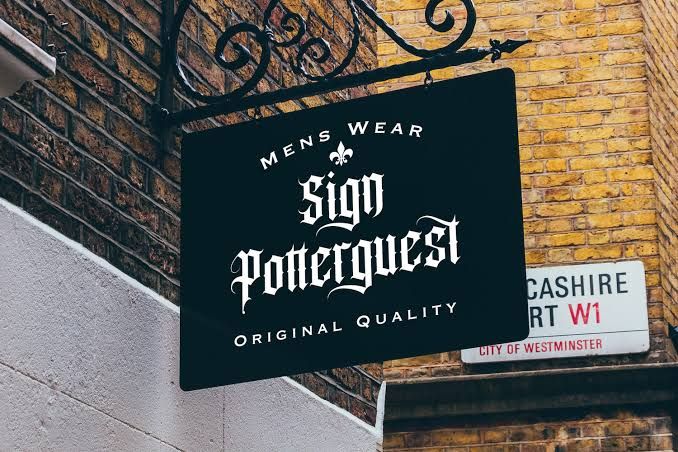
Understanding How To Implement Angel Wish Font in Design
Are you on the lookout for a vintage touch to your designs? Look no further than the Angel Wish font, because this font brings an enchanting blend of elegance to every design project that you create.
Whether you’re creating t-shirts, designing logos, or simply making posters, this kind of font type is the ethereal touch you’ve been searching for. So, let’s learn how to implement this font for a stunning result in your design!
What Is an Angel Wish Font and How Does It Look Like?
Angel Wish Font
The Angel Wish font has an alluring style that resembles old-fashioned writing from medieval times. It has distinct characteristics like sharp, pointy shapes and fancy swirls that give it a special and mysterious vibe.
One of its good points is that it brings an elegant touch and a retro nuance to designs which make them really stand out. The lower cases are thin and sharp, with lines that go from thick to thin and little decorative edges. However, the font really looks stylish and easy to read.
Angel Wish Font Ligature and Alternates
How To Implement Angel Wish Font? Here Are the Ideas!
You can create an astonishing visual by utilizing this blackletter font style as your design element. Take a look at the five inspirations mentioned below!
1. Posters
Angel Wish on Poster Design
The Angel Wish font is a typeface that embodies intricate and decorative features that are inspired by historical calligraphy. It has dramatic strokes that reflect a traditional Gothic style. Additionally, the font’s bold appearance lends a sense of elegance, sophistication, and uniqueness to any design it’s applied to.
With its bold and ornamental style, this font is good for posters because it grabs attention and makes the text more captivating. Whether for headings, titles, or prominent text elements, this font brings a vintage touch that amplifies the poster’s visual impact and enhances the overall design’s appeal.
2. Logo or Signage
Signage Design Using Angel Wish Font
This type of font is like something out of an old and fancy storybook. It has cool and swirly letters that look like fancy handwriting from way back. Plus, it’s bold and makes a statement that will give off a classy and timeless vibe.
If you use the Angel Wish font for your logo or signage, it gives your brand a cool and traditional feel. Besides, its decorative element catches your eye and adds a touch of elegance that’s hard to miss. So, it’s a top choice for your brand logos that make a lasting impression, especially if you’re brand is related to vintage products or services!
3. T-shirt
Angel Wish font for T-shirt Design
Looking for an excellent option for T-shirt designs owing to its stylish and elegant appearance? You can consider the Angel Wish font. With fancy curves and a distinctive style, it effortlessly captures people’s attention.
Despite being quite ornamental, the characters of this font still provide decent readability thanks to the kernings. Hence, you can use it to convey messages or quotes on a T-shirt.
Furthermore, its adaptability to diverse design styles makes it a top pick for T-shirt creators who seek an attractive and attention-commanding aesthetic.
4. Tattoo
Tattoo Design utilizing Angel Wish Font
Tattoo artists appreciate this font because it carries an elegant and vintage style that adds a timeless and classy touch to tattoos. Moreover, its inclusion creates an air of mystery and enchantment within the tattoo design.
Additionally, the font’s intricate yet clear shapes offer the opportunity for customization that allows individuals to craft their own distinct designs. Furthermore, it strikes a great balance between style and readability that ensures that tattoos will appear stylish while remaining easy to comprehend.
5. Album Cover
Angel Wish Font for Album Cover
Choosing the Angel Wish font for a music album cover is a smart idea as it adds a special and classy appearance to the design. Its stylish and artistic look fits the vibe of the music perfectly.
Furthermore, you can adjust it to match various music styles like pop, rock, or jazz.   Because of its holistic styling, using this font ensures people easily recognize your album.
In general, the black letter font style is known to be hard to read. String Labs Creative has designed the Angel Wish font to broaden its functionality. It’s best to serve as a large-sized display font for both a Victorian theme or a modern tone.